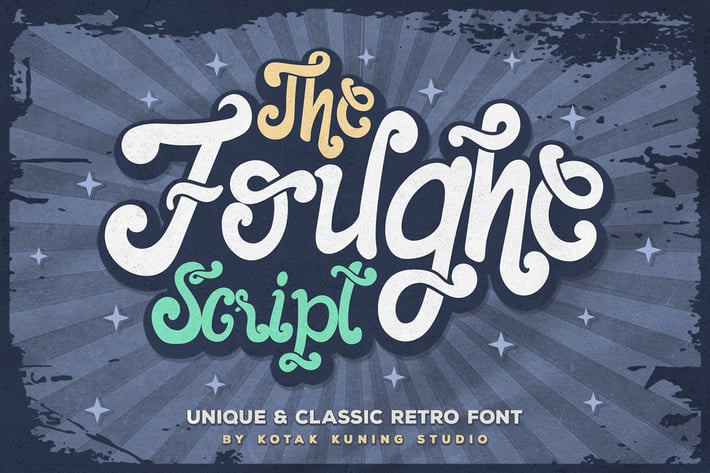
The Foughe Retro Script Font
Introducing The Foughe Script Font - A unique, vintage, and retro font. It was designed with a classic touch which will make your design stand out.
This font is suitable to use as a logotype, product designs, label, watermark, social media posts, apparel, invitation, signboard, sports club, motor/car community, special events, or anything that needs classic, retro, or vintage taste.